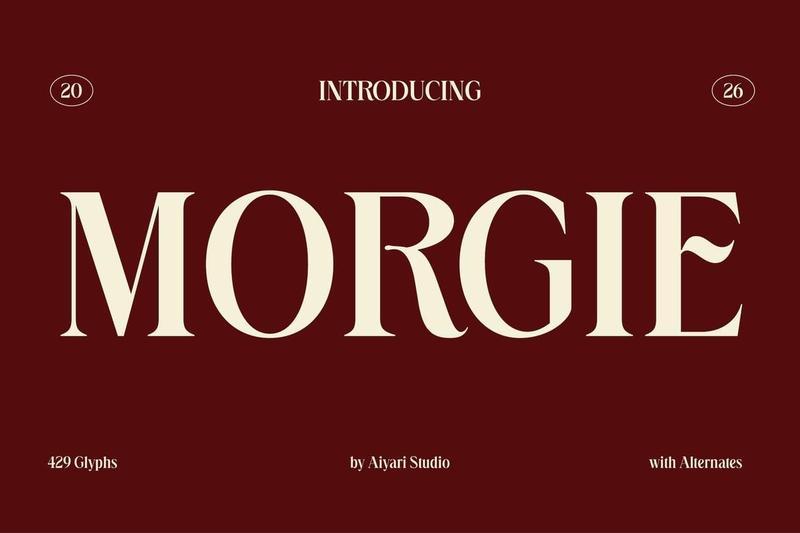
Morgie – Elegant Serif D22RWP6
**Morgie** is a high-contrast display serif with an elegant, fashion-inspired personality. Its sharp, tapered details, flowing curves, and graceful ligatures create a refined look that feels both timeless and modern perfect for designs that want to make a lasting impression.
The font comes with a selection of stylistic alternates and decorative ligatures, including unique connected letter combinations that make logos and headlines feel more custom. These features also help avoid repetitive-looking characters, giving your typography a more polished, handcrafted appearance.
With 429 glyphs, Morgie includes an extended Latin character set with accented letters for a wide range of languages, along with complete numbers, punctuation, and symbols.
Designed for premium branding, **Morgie** works beautifully across luxury logos, fashion and beauty campaigns, wine and champagne labels, fine-dining menus, editorial layouts, wedding stationery, and bold display headlines. Its delicate details and striking contrast truly shine at larger sizes, where every curve and stroke can be fully appreciated.